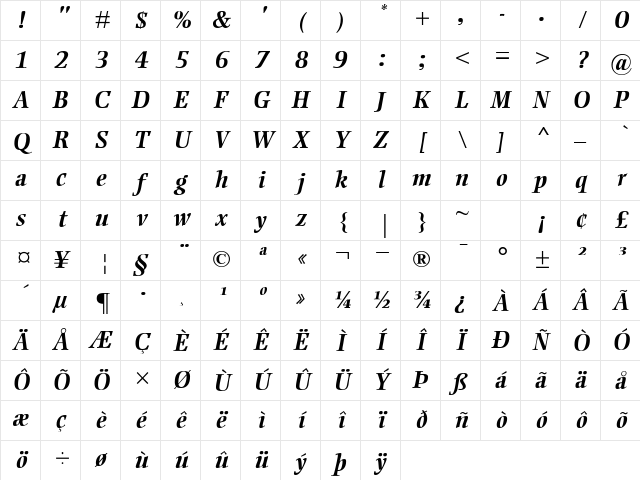
RosarioSSK BoldItalic
Design Context for RosarioSSK
RosarioSSK is a composed and adaptable typeface that performs quietly and consistently across a wide range of design contexts. The slanted form adds forward momentum and visual energy. Its bold stroke weight gives it real presence on the page.